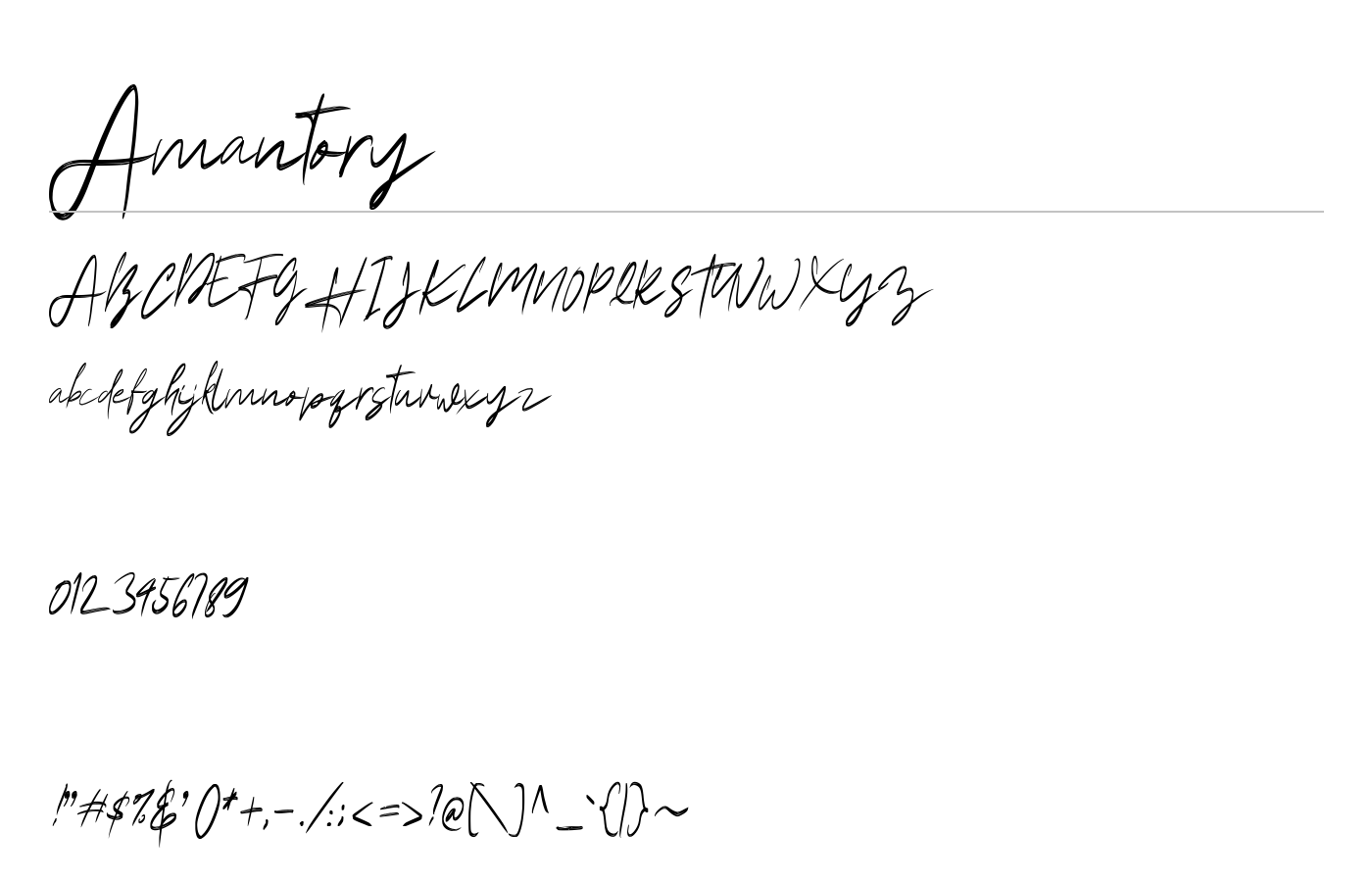
Amantory is a delicate, handwritten script font with a light and airy feel, featuring fluid, slightly irregular strokes that give it a casual yet elegant personality. Its slender letterforms and organic flow make it perfect for creative branding, invitations, and stylish editorial use where a personal, artistic touch is desired. This font works beautifully for designs aiming to convey warmth, creativity, and a refined, contemporary charm.
Amantory Font
About Amantory Font
| Font family | Amantory Font |
| Designer | Analogous Studio |